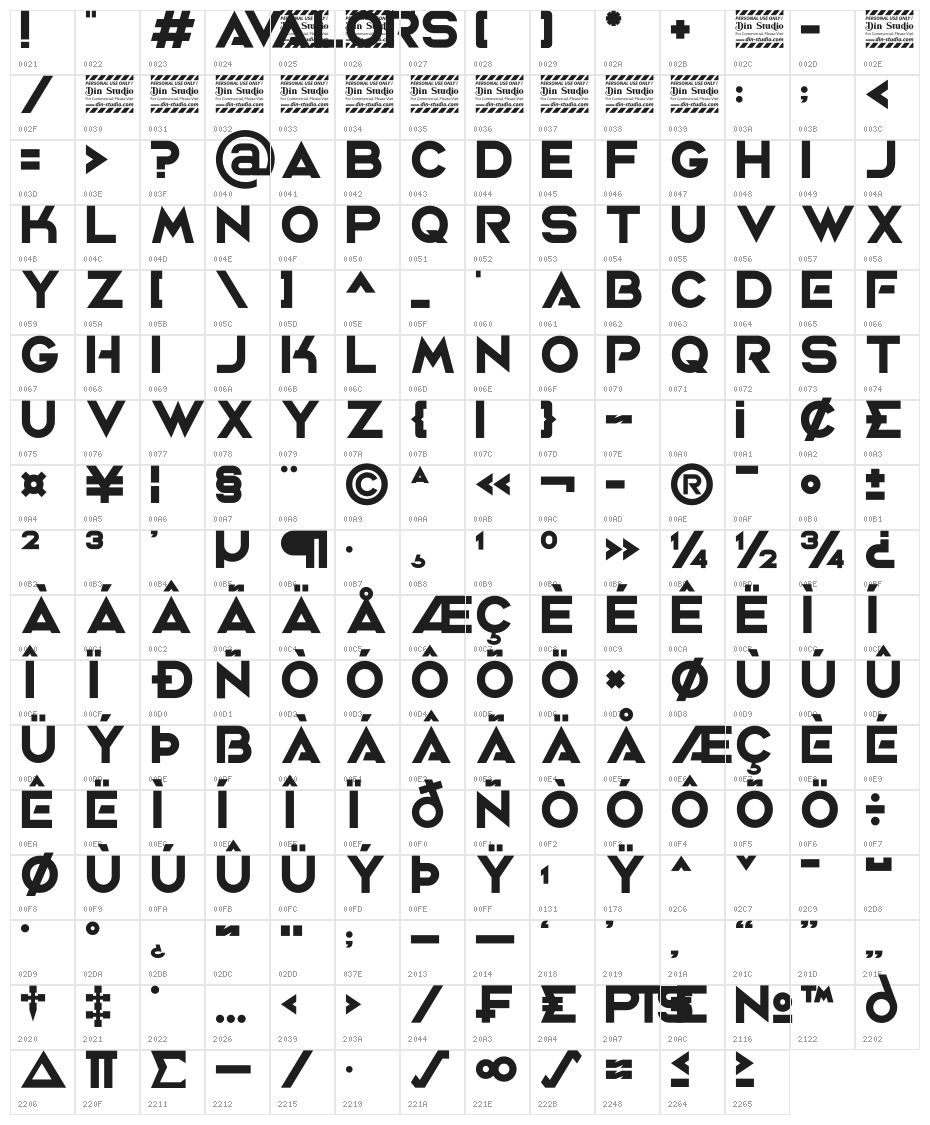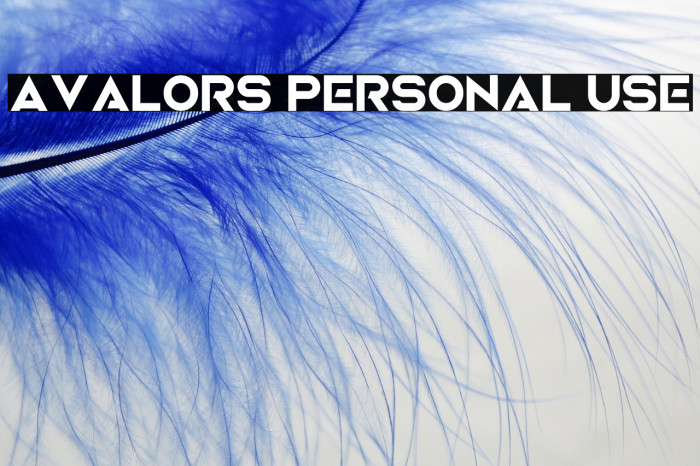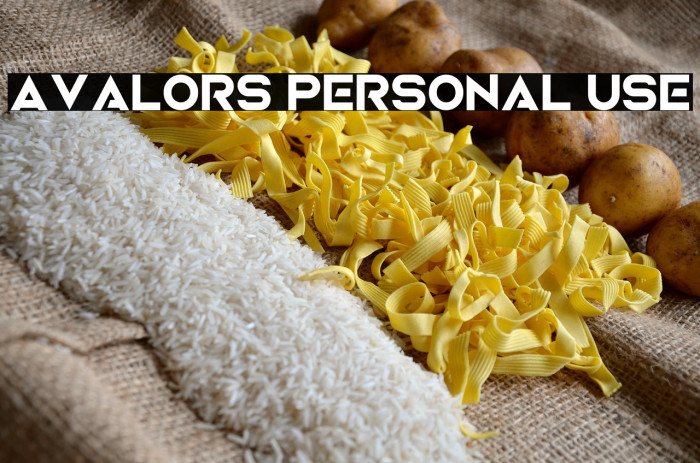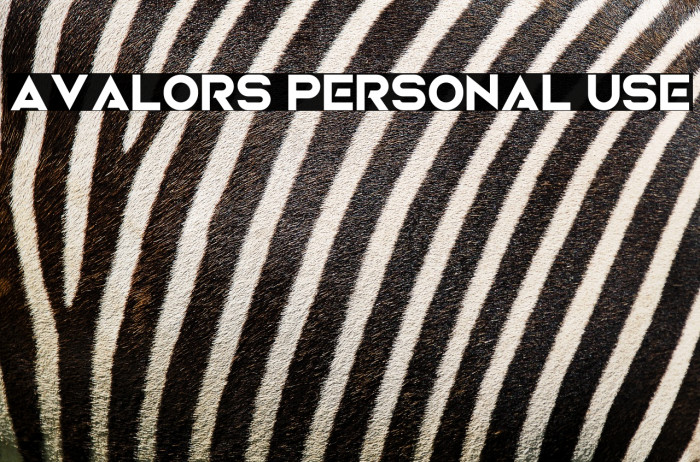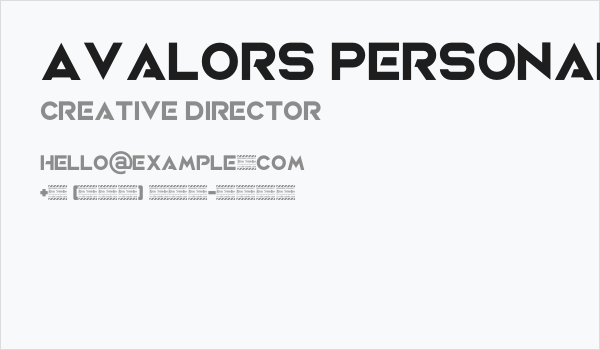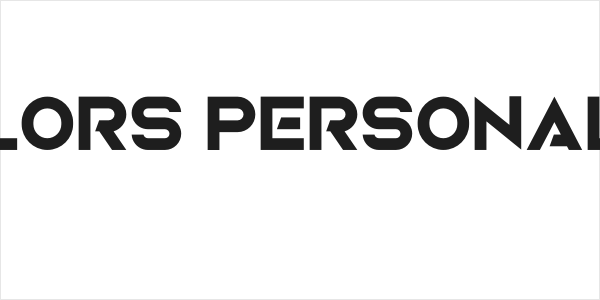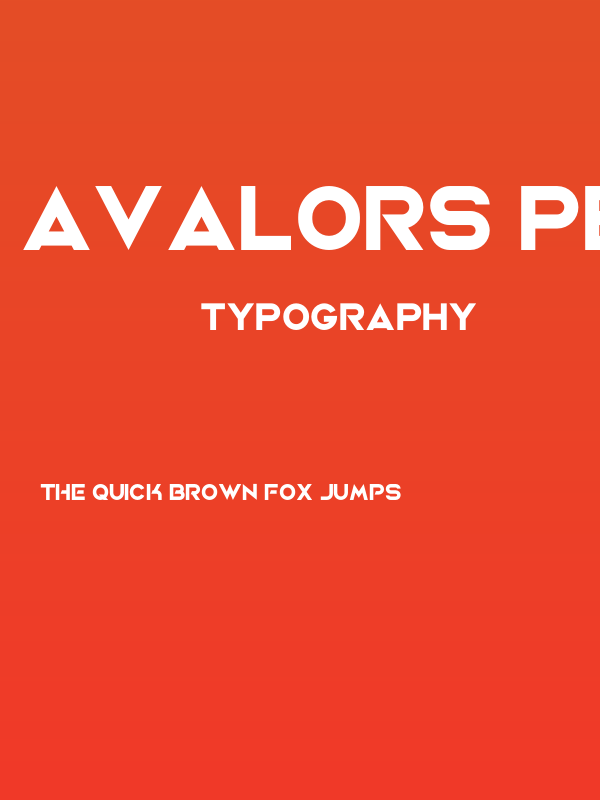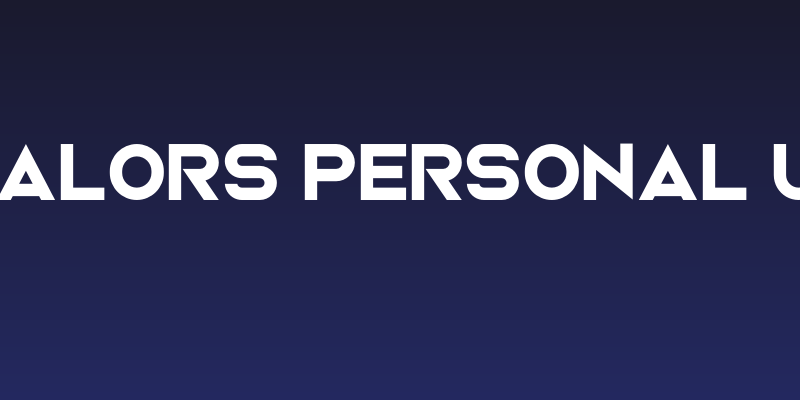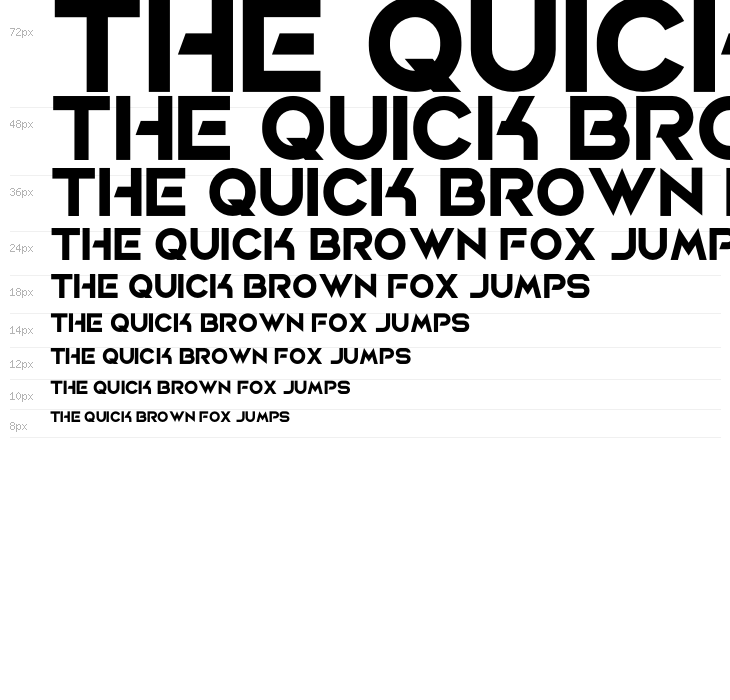
Avalors Personal Use Font
Avalors Personal Use Description
This font features a bold and geometric design, characterized by sharp angles and a strong presence. The uppercase letters are particularly striking, with a futuristic and industrial feel. The characters are wide and have a consistent stroke width, giving them a solid and impactful appearance. The font includes a full set of uppercase letters, numbers, and a selection of special characters, making it versatile for various design needs. Its distinct style makes it suitable for attention-grabbing headlines and modern branding projects.
Proposed ProjectsIdeal for modern branding, technology-themed designs, and eye-catching headlines.